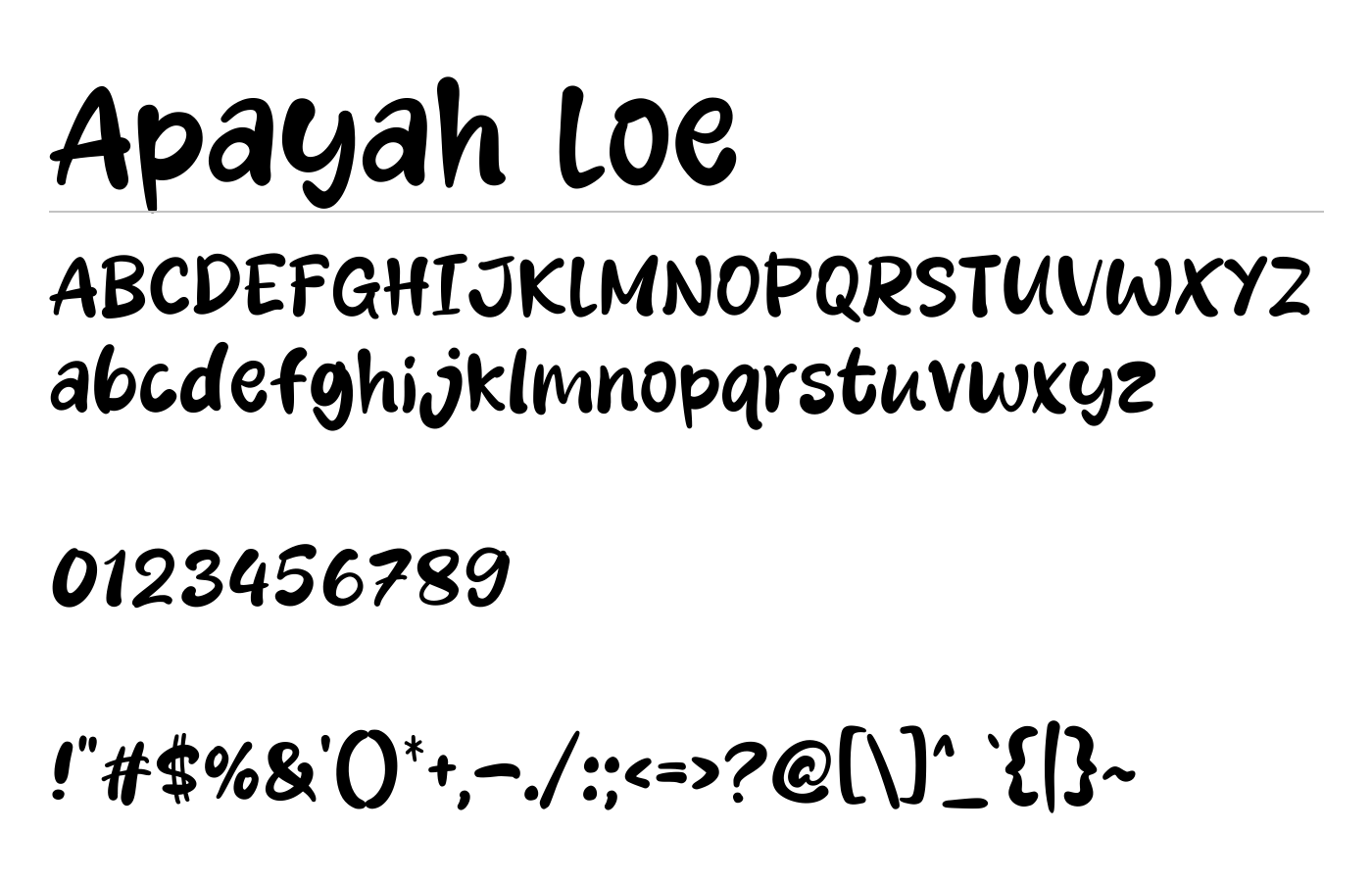
Apayah Loe is a playful, casual handwritten font with a lively, friendly character. Its rounded, slightly irregular letterforms create an approachable and informal feel, perfect for projects that want to convey warmth and creativity. This font works well for logos, packaging, and headlines where a personal, inviting touch is desired.
Apayah Loe Font
About Apayah Loe Font